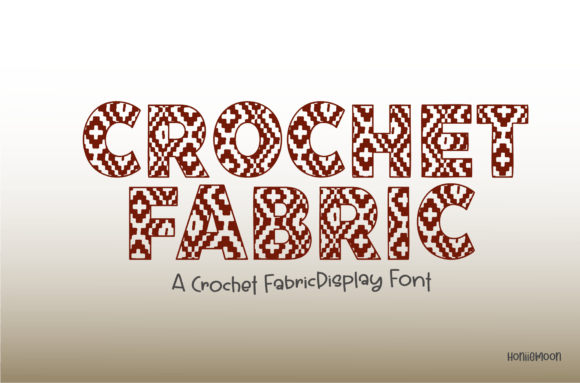
Step into the mesmerizing world of Crochet Fabric Font, where creativity flourishes in a vibrant dance of colors and textures. This decorative font, crafted by the inspired hands of Honiiemoon, is not just a collection of characters; it's an artistic journey that brings your imagination to life.
With its playful and whimsical design, Crochet Fabric Font exudes a sense of joy and wonder that is sure to captivate your audience. Each letter is meticulously crafted to resemble a colorful crochet stitch, adding a touch of warmth and charm to your designs. Let your words take center stage, adorned with this extraordinary font that speaks volumes, even in silence.
Unlock a world of endless possibilities with Crochet Fabric Font. Picture your designs blooming into vibrant masterpieces, where every word becomes a stroke of artistic brilliance. Whether you're creating eye-catching banners, enchanting posters, or personalized greeting cards, this font will transform your ideas into visual spectacles that leave an unforgettable impression.
Don't let your creative spirit be confined by ordinary fonts. Embrace the extraordinary with Crochet Fabric Font. Its unique charm will elevate your designs, making them stand out from the crowd. Let your creativity soar, and let this font be your trusty companion on your artistic journey.
Immerse yourself in the colorful embrace of Crochet Fabric Font and experience the magic of your imagination coming to life. Unleash your inner artist, let your creativity run wild, and let this font be the catalyst for your design triumphs.